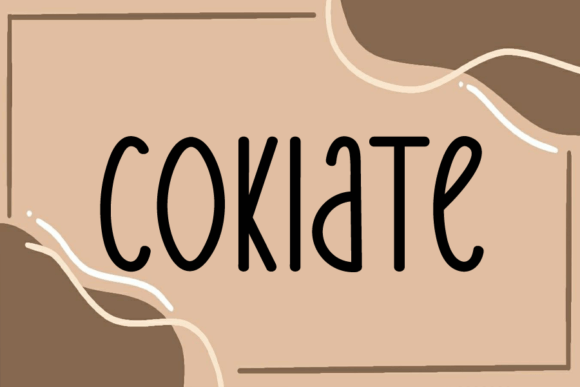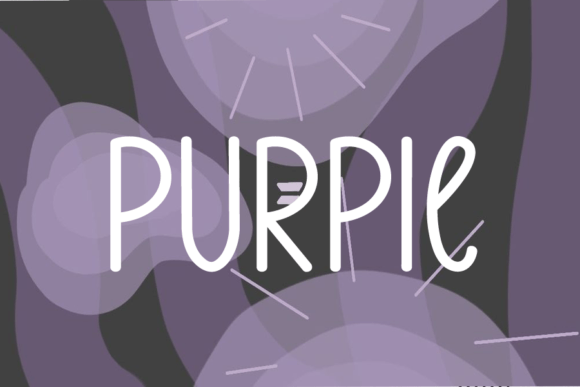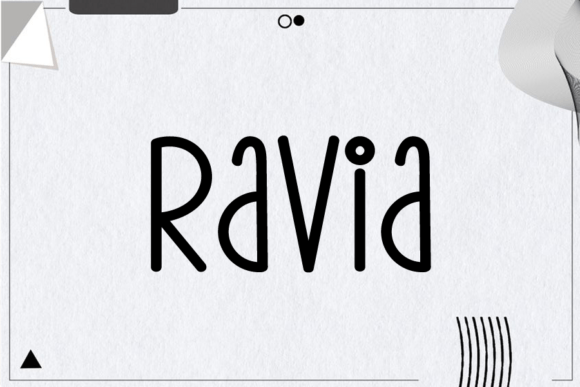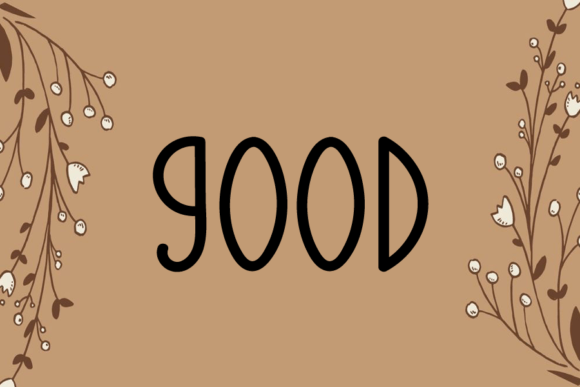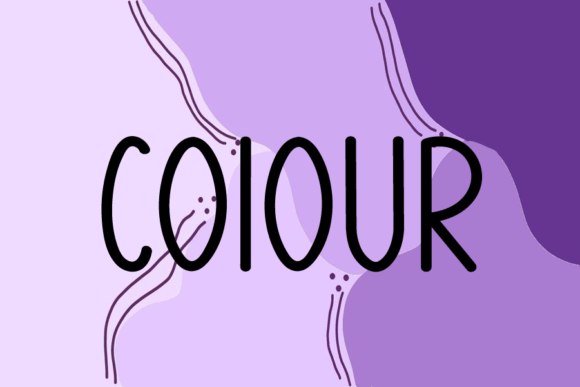
Winter Short Font
About Winter Short Font
**Winter Short** is a classic and elegantly simple handwritten script font, crafted in a random and free-spirited style. This versatile typeface is suitable for a wide array of design applications, making it an excellent choice for logotypes, headline fonts, corporate and brand identity, the apparel industry, posters, music and movie artwork, games, magazines, books, comics, cartoons, YouTube, Instagram, websites, and any other creative design projects you have in mind.
One of the standout features of Winter Short is its classic and uncomplicated design, which offers a sense of timelessness and versatility. Its free-spirited style gives your text a unique and artistic touch, making it perfect for conveying creativity and individuality in your designs.
For logotypes and branding, Winter Short can add a distinct and memorable quality to your brand identity. Its simple yet artistic look ensures that your brand stands out and leaves a lasting impression.
In the apparel industry, this font brings a sense of style and character to your clothing designs, making them visually appealing and distinctive.
In posters, music, movies, and games, Winter Short can create a sense of authenticity and creativity, setting the tone and mood for your artistic endeavors.
Magazines, books, and comics benefit from the font’s readability and unique character, making your content more engaging and visually appealing to readers.
In the digital realm, whether it’s YouTube, Instagram, or website design, Winter Short adds a touch of personality and creativity to your online presence, making your content stand out and resonate with your audience.
In summary, Winter Short is a classic and simple handwritten script font that offers a timeless and free-spirited style. Its versatility and unique character make it a fantastic choice for a wide range of creative design projects, where it can convey authenticity, individuality, and creativity in a beautifully artistic way. Embrace Winter Short to add a touch of classic elegance and uniqueness to your creative work.